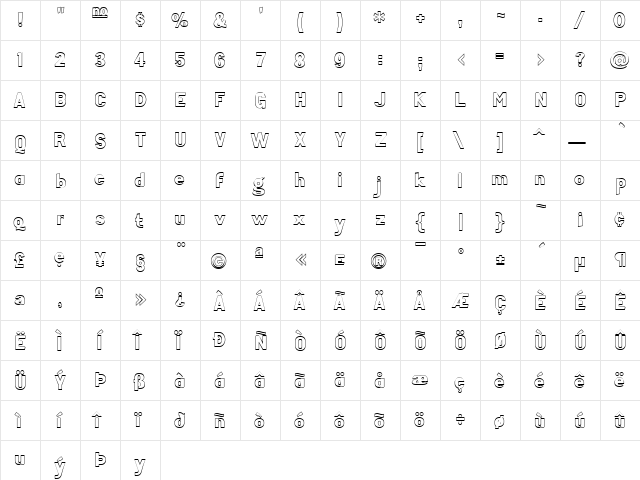
Tenko Regular
Design Context for Tenko Typeface
Tenko takes a measured approach to typography — its balanced proportions and neutral character make it a reliable workhorse for both digital and print work.